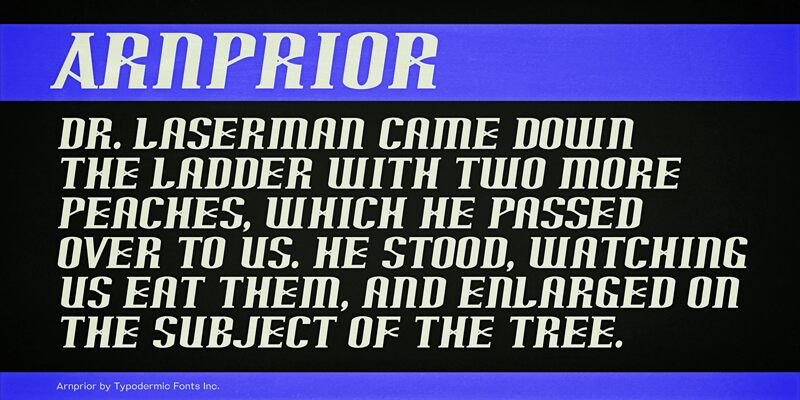
Arnprior-Regular
Arnprior, a modular display font crafted by Typodermic Fonts, exudes a bold and rhythmic presence. Its wavy crossbars and adornments add a dynamic, almost kinetic, quality to the typography, captivating the eye with their unique flourishes. This font's striking visual appeal lends itself to attention-grabbing headlines, impactful branding, and editorial designs that demand a strong, distinctive typographic statement.
Arnprior's versatility shines through its ability to seamlessly integrate into a wide range of design contexts, from modern and edgy identities to vintage-inspired layouts. Its bold, attention-grabbing presence makes it an ideal choice for posters, book covers, and other high-impact applications where the typography needs to command attention and leave a lasting impression on the viewer.